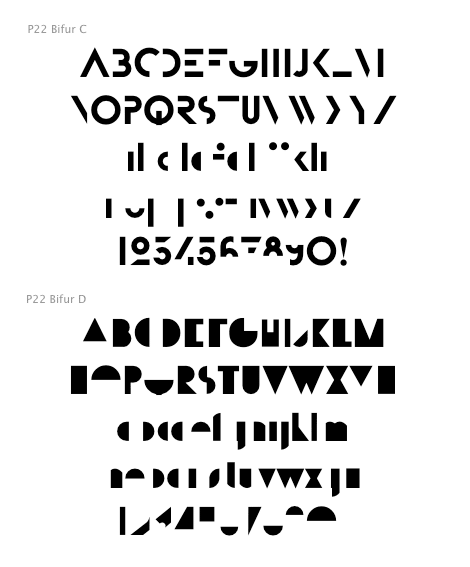
Bifur C&D (International House of Fonts)
Bifur was originally designed by poster artist A.M. Cassandre. This "Art Deco" type design was issued by the French foundry Deberny & Peignot in 1929. Even upon it's original release and promotion, suggestions on how not to use Bifur were presented. As with most highly decorative display faces, the use should be selective and used sparingly. Of course the layout of "THIS IS NOT THE WAY TO USE BIFUR" in repeated paragraph form has become a famous design and appears in many surveys of design history.Bifur (abbreviation of Bifurcation: a division into two parts) was originally designed as a single font (cut in several sizes with the number of parallel lines increasing as the point size increased) and also as a two-part font that could be printed in two solid colors. Cassandre only designed the upper case characters, numbers and basic punctuation. The "bifurcation" occurs with the bold "keyline" being the most basic recognizable element in the Letter ( Z and N being simply a diagonal line) and the secondary part being a solid shape or a tone created with the parallel lines). It was fairly popular (although not a financial success) and often imitated for display lettering. Occasionally these imitations made some innovations but mostly they were poor substitutes. One imitator attempted a lower case. This was used as a starting point for the P22 version which adds a lower case while keeping the upper case and all original characters true to the original Cassandre design.
Design Tip:
When using the two part Bifur fonts (P22 Bifur C along with either D,E or F), the best way to start is typing your text using a fully legible font (or A or B). The two part fonts can be done in any page layout program that supports layering (Illustrator, Freehand, Photoshop, Corel Draw).
After typing your text, select one of the Bifur fonts and arrange the size and layout as desired. If you set up horizontal and vertical guidelines, you can move the text box to "snap" into a corner. You can then copy the text box and change the Bifur font to it's companion font. If you drag the second text box to the same guidelines, the two should be aligned perfectly one on top of the other. If the wrong one is on top then send it to the back. You can then group the two text boxes and move them together to the prefered area of your design.
Results may vary for various printers. 300dpi or 600 dpi printers may cause the tight parallel lines to appear irregular at smaller point sizes. Onscreen rendering of the parallel lines will be irregular at smaller sizes. Bifur should not be used at lower than 48 points for any purpose. EVER.